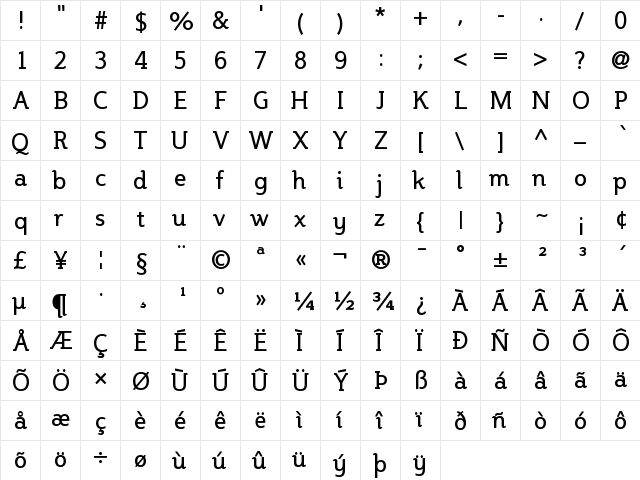
Steinem Roman
Design Context for Steinem Typeface
Steinem offers clean, dependable letterforms without strong stylistic allegiance, making it a practical choice for designers who need flexibility.